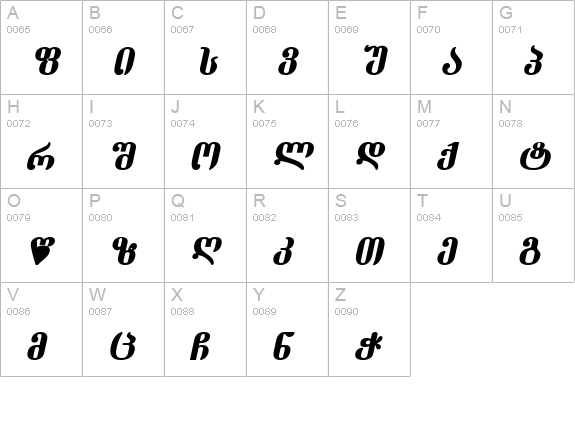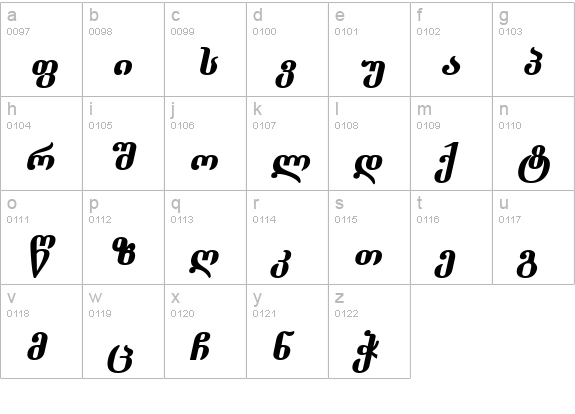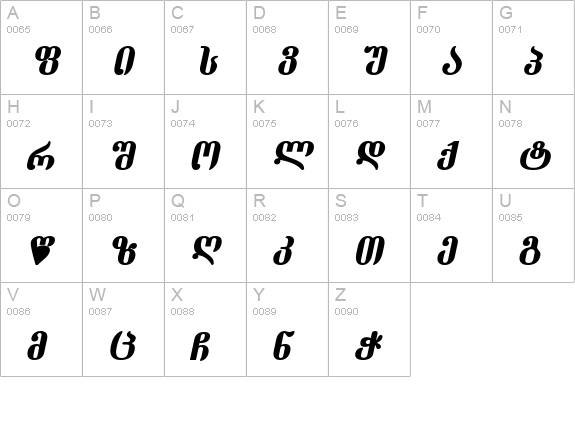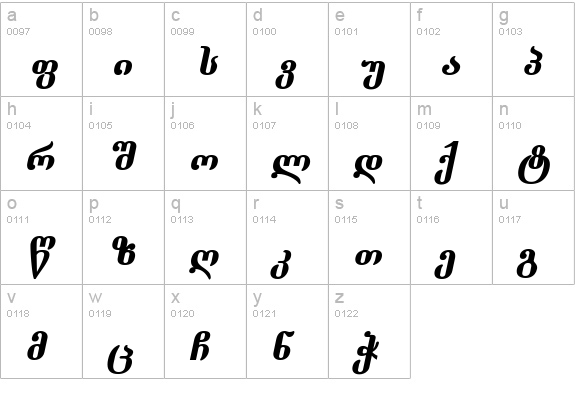
Dumbadze-ITV Bold Italic Font Details
Dumbadze-ITV Bold Italic is a strong, high-contrast, italic variant in the Dumbadze typeface family \xE2\x80\x94 well suited to headlines, attention-grabbing titles, and strong calls-to-action.
Introducing Dumbadze-ITV Bold Italic font - a striking and modern typeface that effortlessly captures attention with its bold yet elegant design. This font is perfect for making a statement in your projects, whether it be branding, advertising, or creative designs. The Dumbadze-ITV Bold Italic font exudes a sense of confidence and sophistication, making it ideal for headlines, titles, and other prominent text elements. Its unique italicized style adds a touch of flair and personality to any text it graces. And the best part? Dumbadze-ITV Bold Italic font is available for free download at FontsMarket.com. You can easily enhance your designs with this eye-catching font without any cost involved. Don't miss out on the opportunity to elevate your projects with the timeless appeal of Dumbadze-ITV Bold Italic font.